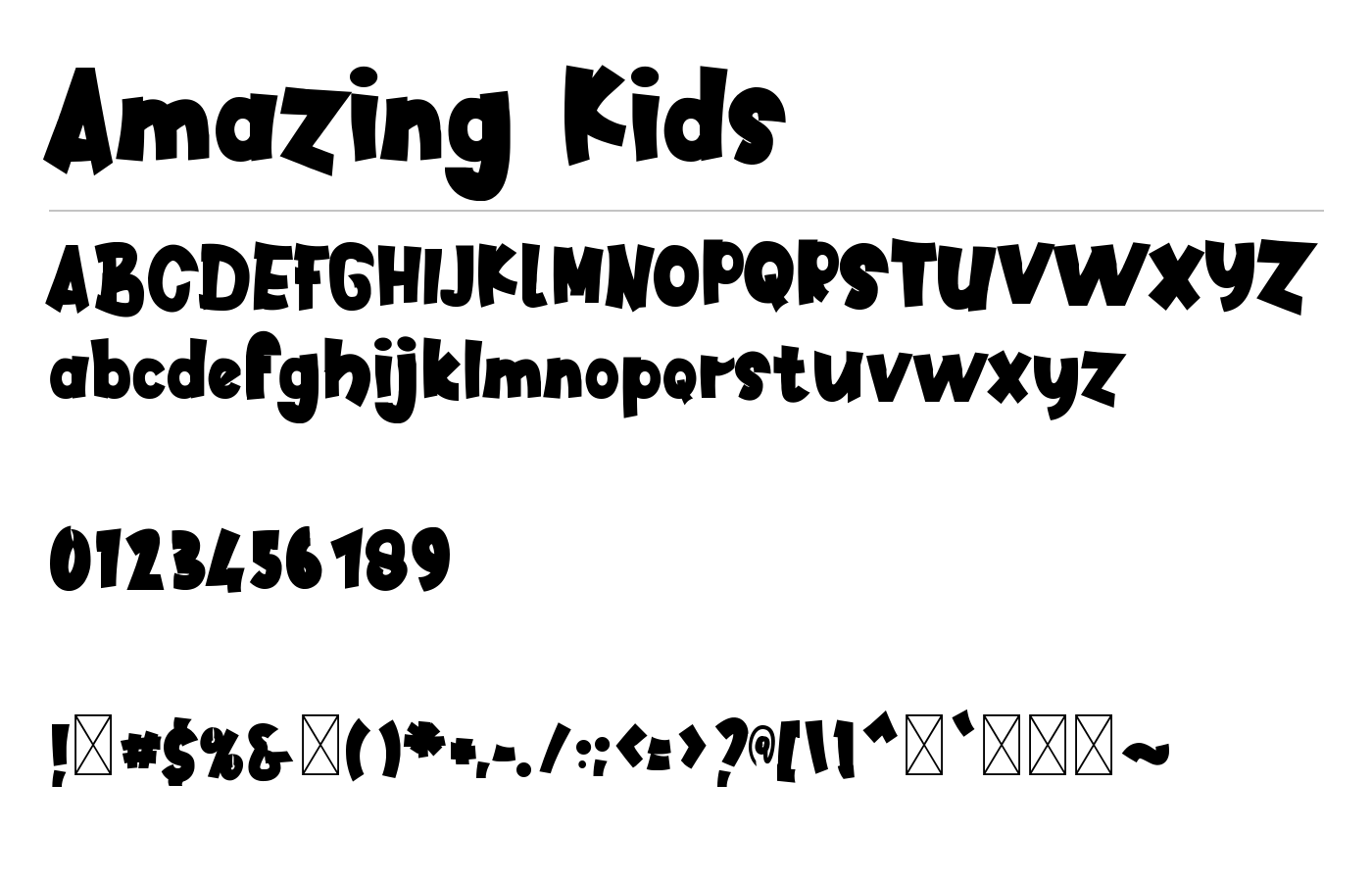
Amazing Kids is a playful, bold sans serif font with chunky, irregular letterforms that create a fun, lively vibe perfect for children’s content. Its wide, uneven shapes and strong presence make it great for eye-catching headlines, posters, and branding aimed at kids, bringing energy and a friendly feel to any design.
Amazing Kids Font
About Amazing Kids Font
| Font family | Amazing Kids Font |
| Designer | StringLabs |